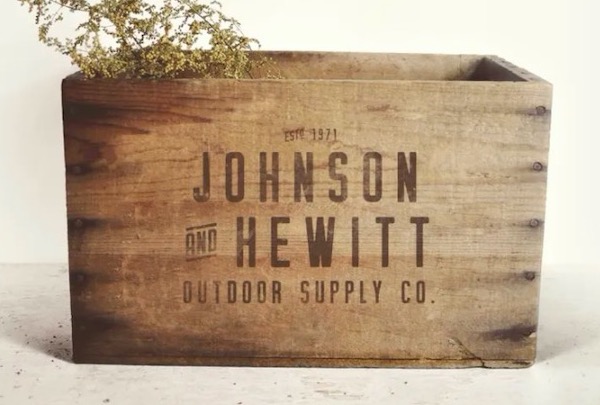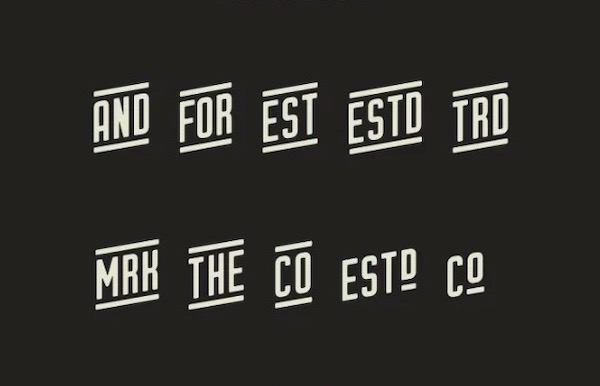
Cache is a classy and premium display font family, designed by Quill Type Co. Cache Font Family includes three styles: Regular, Rough, and Pressed, each with a slanted Oblique option. The Pressed style features a unique, hand-crafted texture for each character, which adds to the font’s authentic vintage feel. Whether you’re working on a logo, poster, apparel, signage, or anything else, Cache is the ideal font family to help you achieve the exact look you’re after.
Cache Display Font